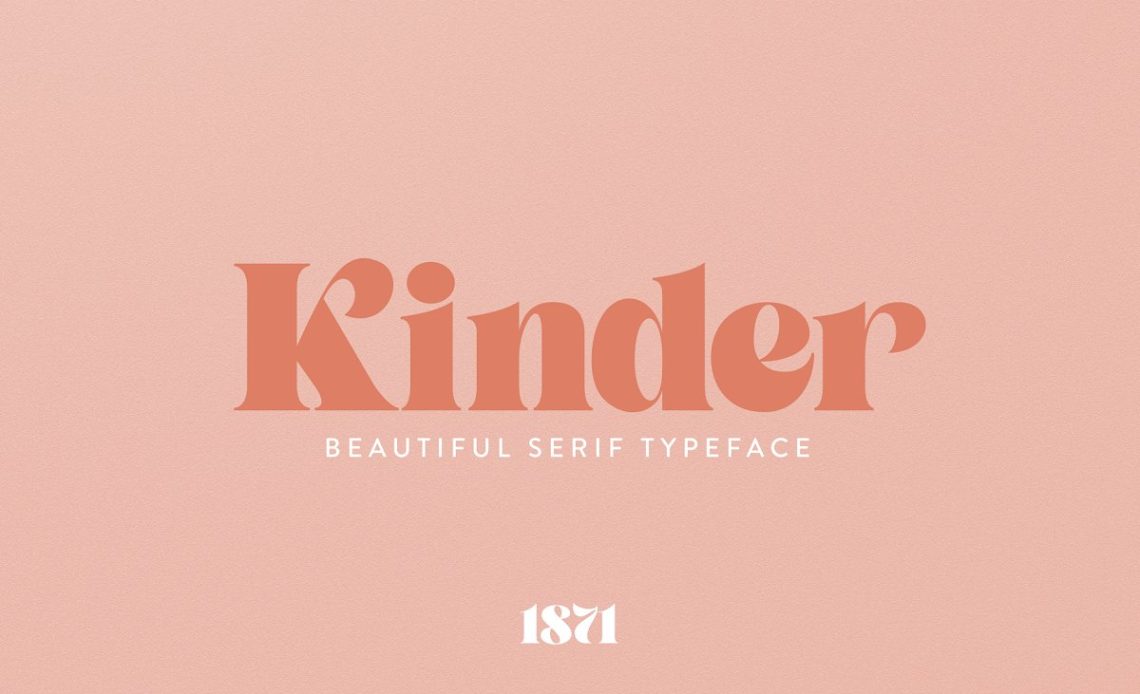
Introducing Kinder, the best font for movie posters, designed by Alex Joganic. If you're looking to make a statement with your typography, Kinder is the perfect choice. It's our first serif font, featuring both upper and lowercase characters, with beautiful curves and a modern feel. Take a look at that K and see for yourself! Inspired by old records and vintage typography, Kinder has a 1871 spin, giving it a unique edge that's perfect for creating eye-catching designs.
With a wide range of stylistic alternates and unique characters, Kinder is a versatile powerhouse that can be used for logos, headlines, posters, shirts, and anything else you can think of! And with Kinder, you get more than just a font. You'll receive the Kinder font for use in all your favorite programs, the Kinder Webfont for your website, and 40 unique alternates to make your design truly your own. Plus, you'll have access to Alex Joganic for any questions you may have.